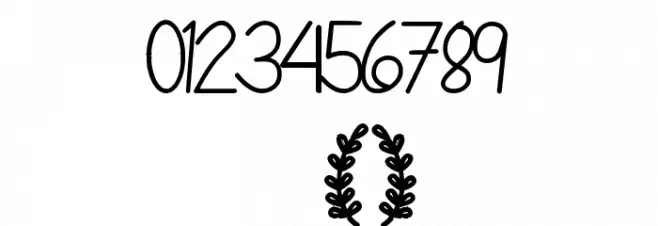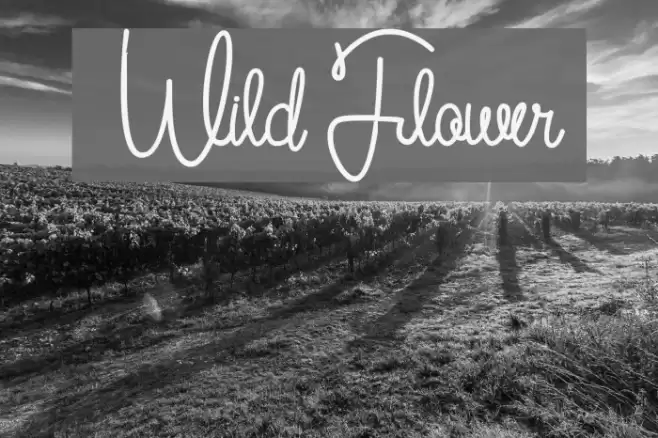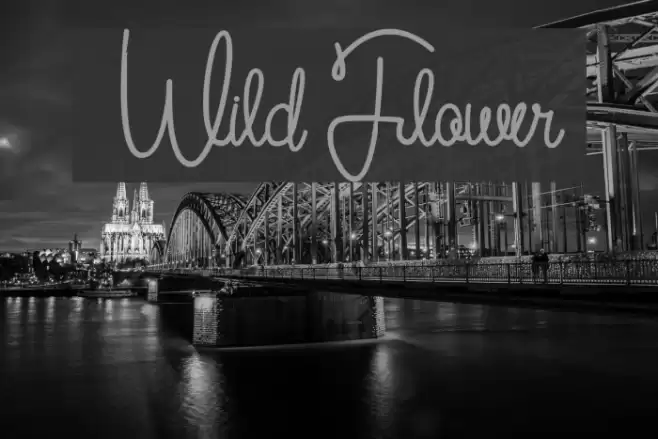
[ Wild Flower ] Font
[ Wild Flower ] Description
This font features a charming, handwritten style with a playful and flowing script. The uppercase letters are elegantly looped, while the lowercase letters maintain a consistent, smooth flow, enhancing readability. The numerals are clear and distinct, matching the whimsical nature of the alphabet. Special characters are creatively integrated, adding a decorative touch. The overall appearance is casual yet refined, making it suitable for a variety of creative projects.
| Use Case | Logos, Invitations, Greeting Cards |
| Proposed Projects | Ideal for wedding invitations, greeting cards, personal branding, and creative logos. |